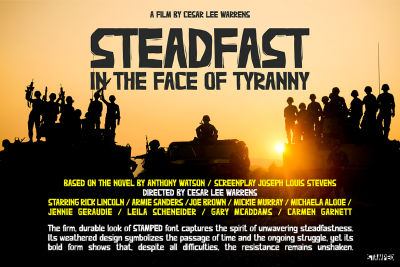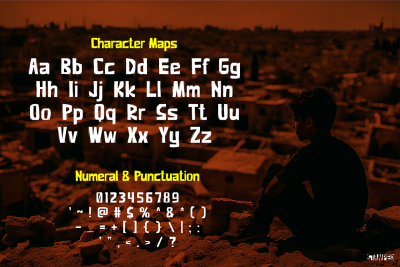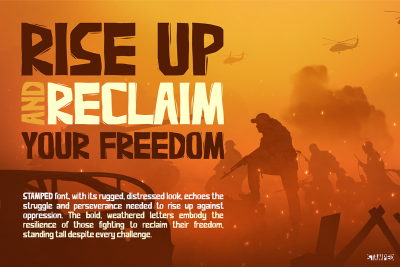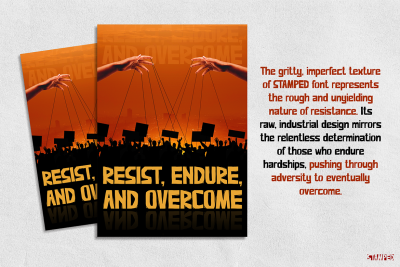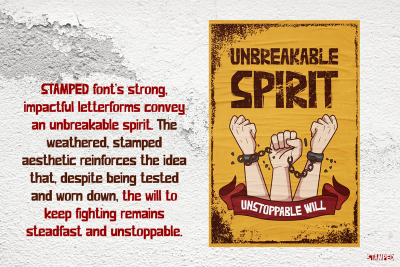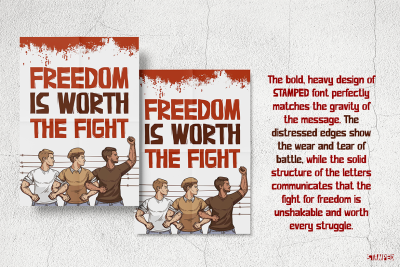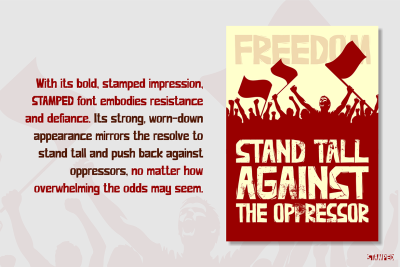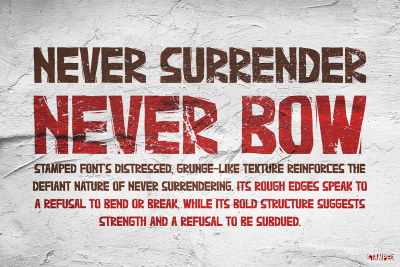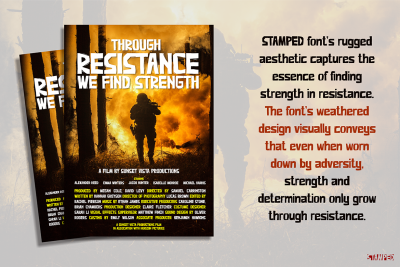
Gaming font stamped
STAMPED
Gaming font stamped is the ultimate choice for creators who want to evoke intensity and energy in their designs. This bold and visually striking font, with sharp edges and a rugged structure, captures the essence of war games, apocalyptic themes, and gritty action scenes. Therefore, it is ideal for game developers, poster designers, and anyone looking to make a lasting impression.
Moreover, this font stands out due to its ability to bring cinematic experiences to life. Inspired by battlefield aesthetics, it works beautifully in designs that require strength and boldness. Additionally, it adapts effortlessly across digital platforms, including gaming interfaces, YouTube thumbnails, and social media campaigns. As a result, it pairs well with vibrant visuals, fiery tones, and action-packed layouts, ensuring your design truly stands out.
Gaming font stamped Perfect for Gaming and Beyond
Designed specifically for the gaming community, the gaming font stamped delivers a powerful visual impact. Its commanding style immediately grabs attention, making it an excellent choice for branding, merchandise, or promotional materials. For instance, it is perfect for crafting eSports logos or designing immersive game titles that resonate with your audience. Furthermore, its rugged and dynamic look adds a sense of adventure and excitement, which is particularly appealing to gamers.
In addition, the fontโ€™s structure ensures readability across all screen sizes, from PC monitors to mobile devices. Not only does it work seamlessly in headers, banners, and posters, but it also fits perfectly with gaming genres like war strategy, post-apocalyptic adventures, and first-person shooters. Because of its versatility, it performs well in both digital and print formats, giving designers the freedom to explore limitless creative possibilities.
Finally, whether you are building a gaming brand, designing marketing visuals, or creating standout titles, this font is a must-have. Its boldness, adaptability, and striking aesthetic make it an invaluable tool for any creative project. Consequently, it ensures that your design will leave a lasting impression on your audience.